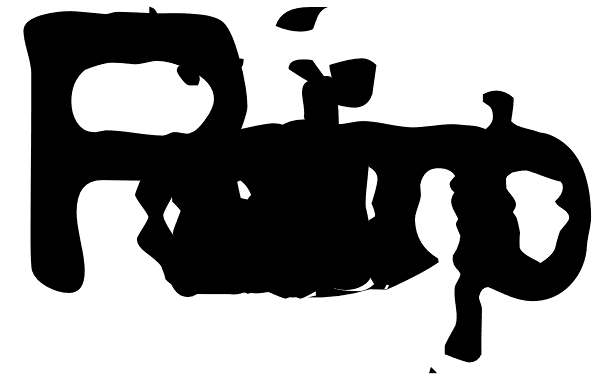
Redemption
Redemption is inspired by religious doomsday flyers that have been photocopied so many times that they take on a very stressed and jaded look. A look that usually reflects their content quite well!
Redemption Font